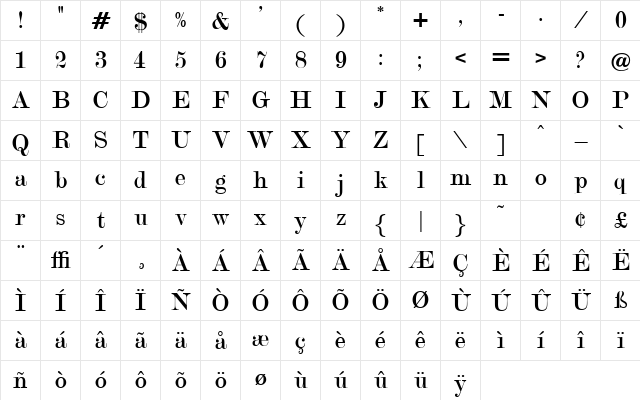
Modellen Regular
Design Context for Modellen Typeface
Modellen takes a measured approach to typography — its balanced proportions and neutral character make it a reliable workhorse for both digital and print work.
Pro Tip: Pair Modellen with a font of contrasting weight or personality to build a more expressive typographic hierarchy.